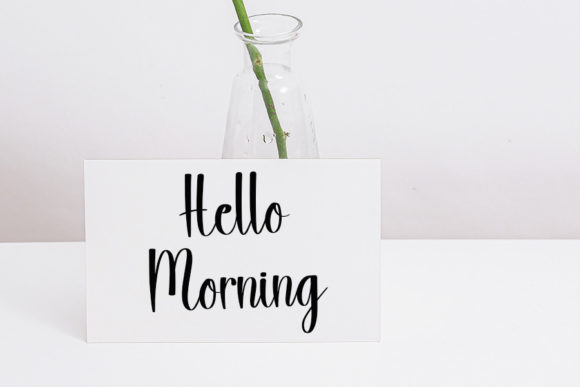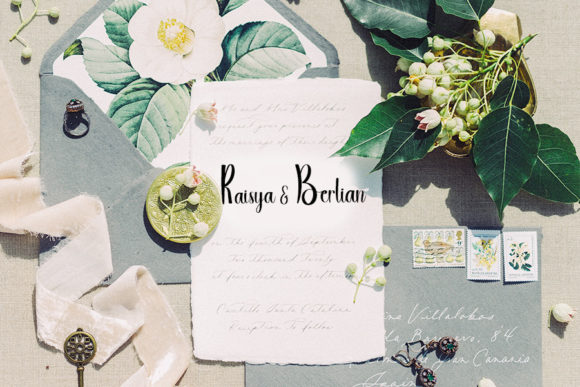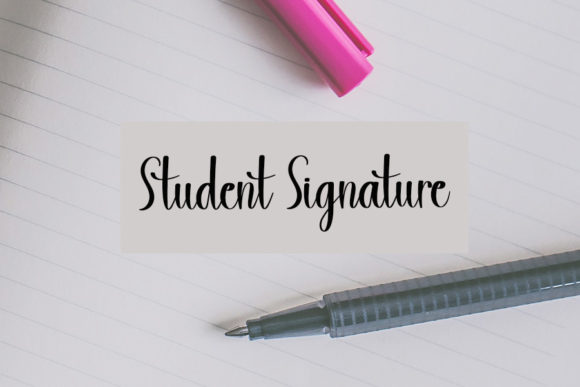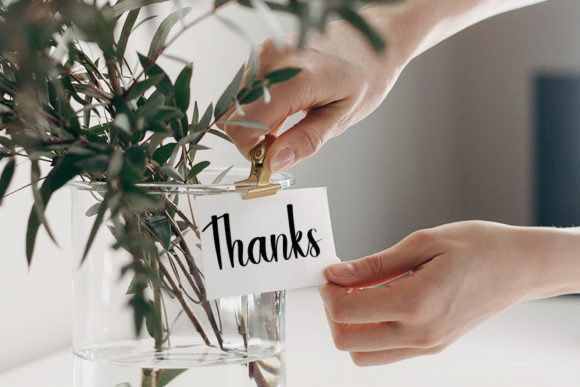
Bring Your Projects to Life with the Perfect Touch of Handwritten Elegance
There’s nothing quite like the thrill of creating something from scratch. You’re brainstorming ideas, sketching out rough drafts, and pouring your heart and soul into every detail. And then, it happens – the perfect font appears, elevating your design to new heights. For many designers, this moment is a game-changer.
Enter Autography Font, a stylish handwritten font that embodies the perfect blend of classic calligraphy and modern flair. Designed to add a touch of sophistication to any project, Autography Font is the ultimate companion for creatives looking to make a lasting impression. Whether you’re working on a branding campaign, a wedding invitation, or a book cover, Autography Font is sure to bring your vision to life.
Autography Font Key Features
- Font Family: Autography Font is a modern script font designed to resemble handwritten text.
- Unique Characteristics: Features subtle variations in letterforms, making it ideal for adding a touch of personality to designs.
- Language Support: Supports a wide range of languages, including Latin, Greek, and Cyrillic scripts.
- Style Variations: Includes multiple styles, including regular, bold, italic, and bold italic, to cater to different design needs.
Autography Font Review
Overall, I was quite impressed with Autography Font. It has a unique and modern aesthetic that can add a touch of sophistication to any design project. Here are some of the things that work well: ✨
- Unique and modern aesthetic
- Highly customizable with various font weights and styles
- Supports a wide range of languages, making it suitable for global projects
- Some users may find the font to be too bold or overwhelming, especially in smaller sizes
- The font may not be as readable on screens with lower resolutions or pixel densities
- May not be suitable for body text or large blocks of text, as it can be tiring to read
Overall, I would recommend Autography Font for projects where a modern and sophisticated look is desired, such as logos, headlines, or titles. However, for body text or projects that require high readability, you may want to consider a more conservative font choice.
Autography Font: A Practical Application Guide
Some tips for getting the most out of Autography Font include:
– Using it for creative and artistic purposes, such as invitations and posters.
– Experimenting with different font sizes and colors to create visual interest.
– Combining Autography Font with other fonts to create a unique and eye-catching design.
Alternatives to Autography Font
Great Vibes is a beautiful, cursive font ideal for creating a relaxed and friendly atmosphere. It’s perfect for use in branding, advertising, and editorial content. Great Vibes is more elegant and refined compared to Autography Font, making it suitable for high-end designs.
Pacifico is a stylish, modern script font that works well for headings, titles, and short paragraphs. It’s ideal for use in packaging, magazines, and online content. Pacifico is more versatile and sophisticated than Autography Font, making it suitable for a wide range of design projects.
Carolyna Pro is a elegant, cursive font that’s perfect for use in high-end branding, advertising, and editorial content. It’s more refined and sophisticated compared to Autography Font, making it suitable for luxury designs. Carolyna Pro is ideal for use in headings, titles, and short paragraphs.
Dancing Script is a playful, cursive font that’s perfect for use in creative, whimsical designs. It’s ideal for use in branding, advertising, and editorial content that requires a touch of elegance and sophistication. Dancing Script is more casual and approachable compared to Autography Font, making it suitable for fun and lively designs.